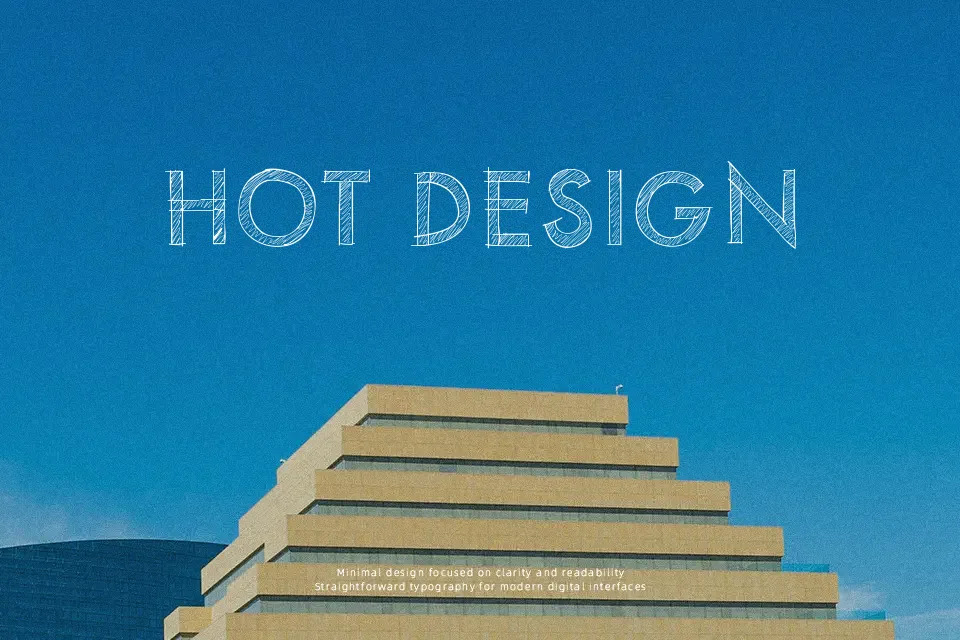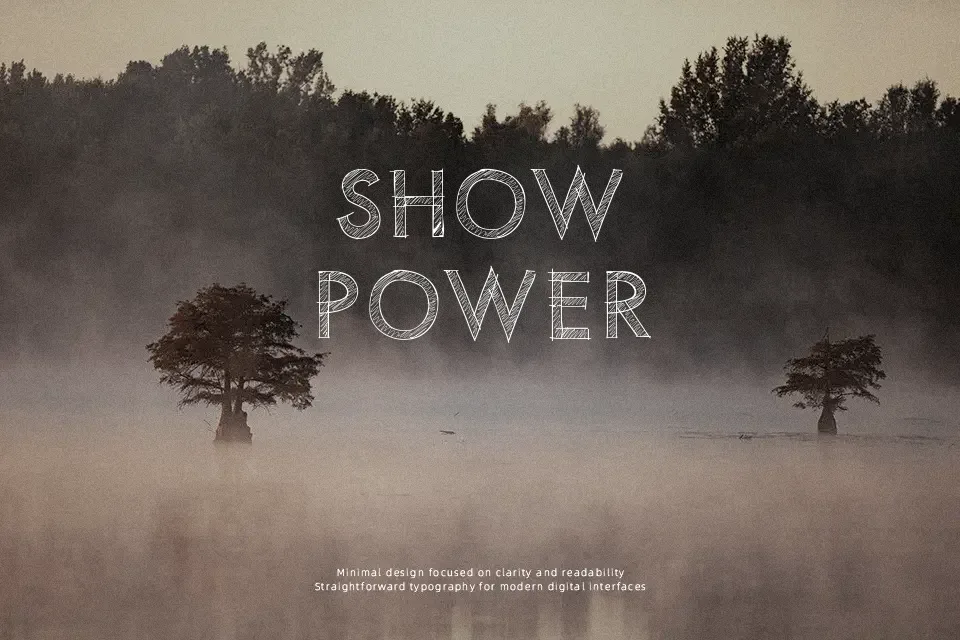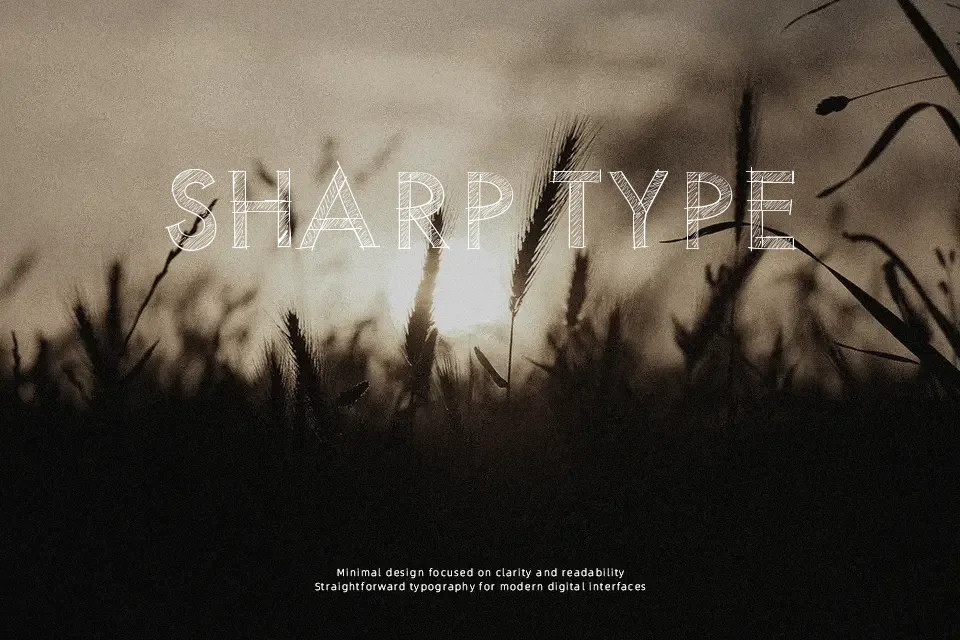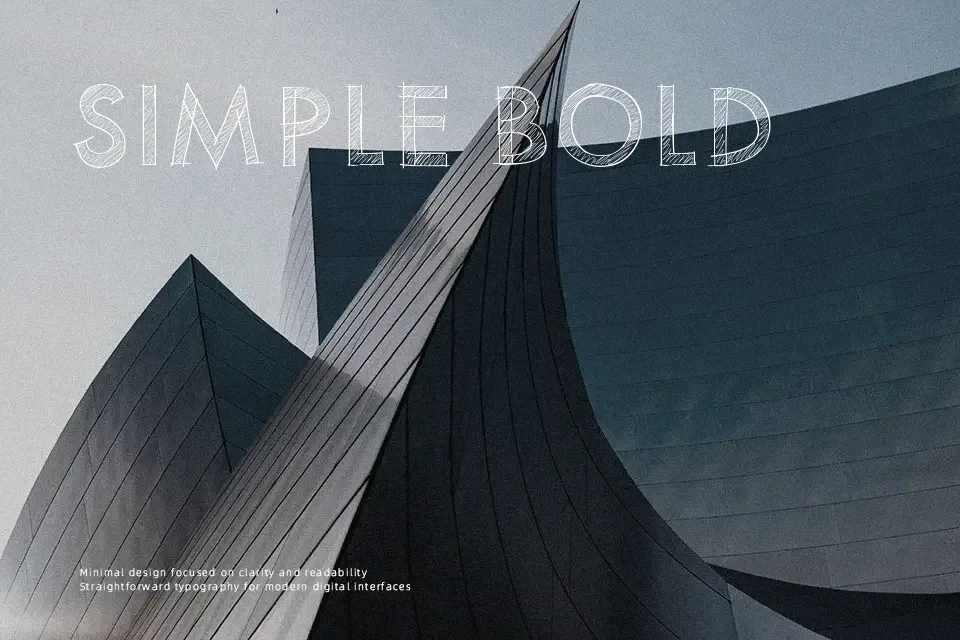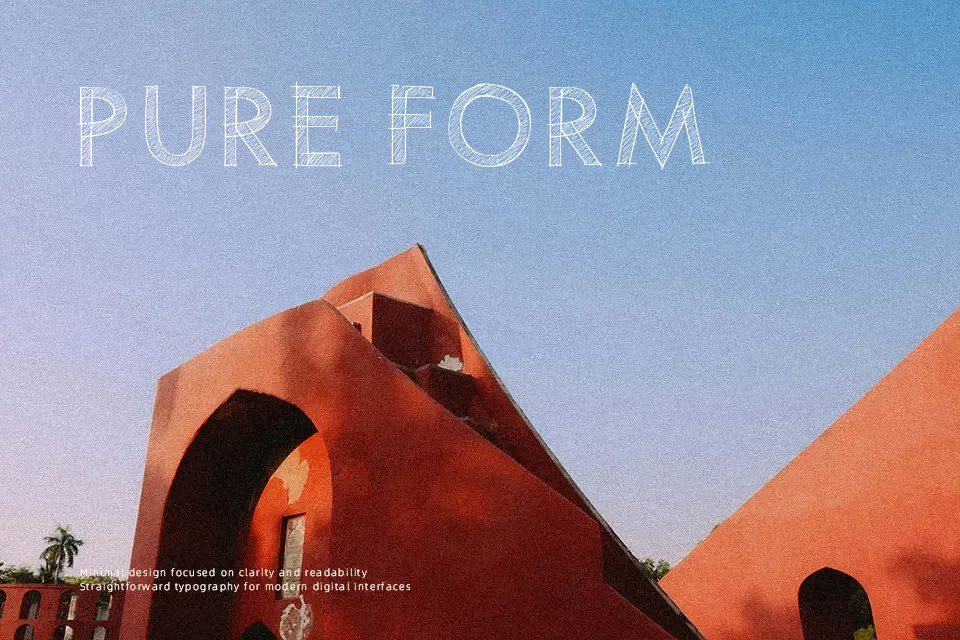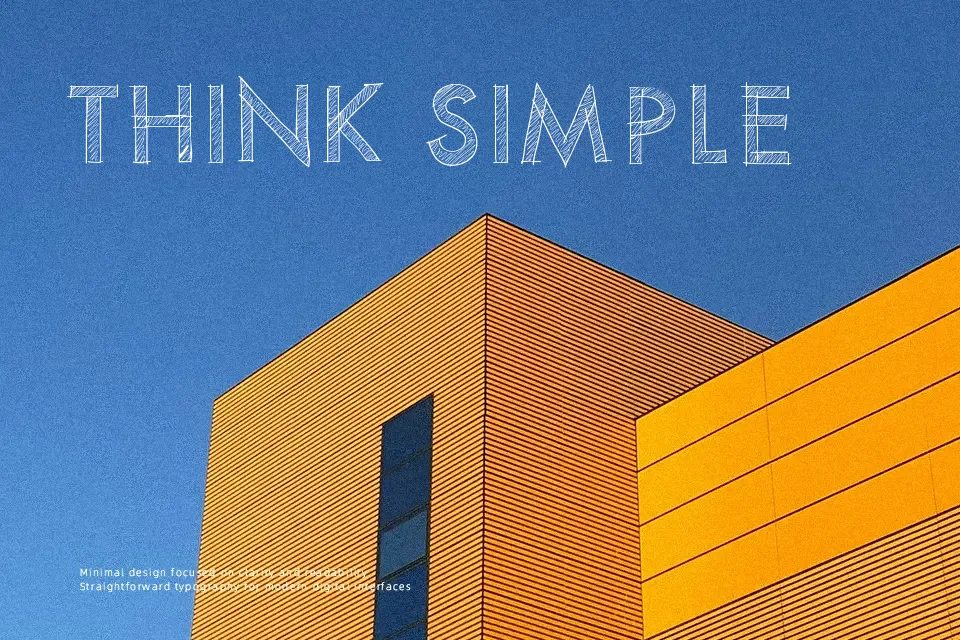
PW Scratched Font
A high-energy branding project or an edgy album cover benefits immediately from the chaotic, expressive energy of PW Scratched Font. The letterforms are defined by intense, pen-like scribbles that create a heavily textured, distressed appearance across the entire character set. Because the strokes are tightly packed with erratic, overlapping lines, the typeface carries a raw, artistic weight that naturally commands attention. This design performs best when displayed at larger sizes where the rough, hand-drawn details can be fully appreciated without blurring together. Tight interior spacing and aggressively textured edges reduce continuous reading comfort, making the glyphs significantly harder to parse in longer paragraphs or smaller subheadings.
grunge event posters, rebellious streetwear apparel, edgy album art
dense editorial layouts, small interface labels, spreadsheet data
Perfect for branding, headline, and packaging, with a artistic and decorative style.